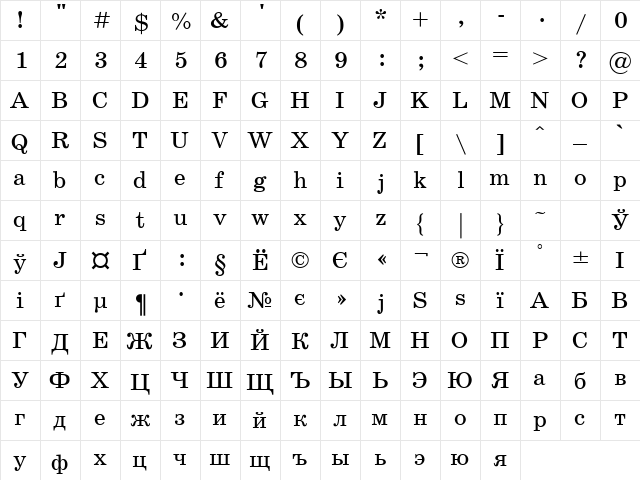
SchoolBook Cyrillic
Design Context for SchoolBook Typeface
SchoolBook is a composed and adaptable typeface that performs quietly and consistently across a wide range of design contexts.